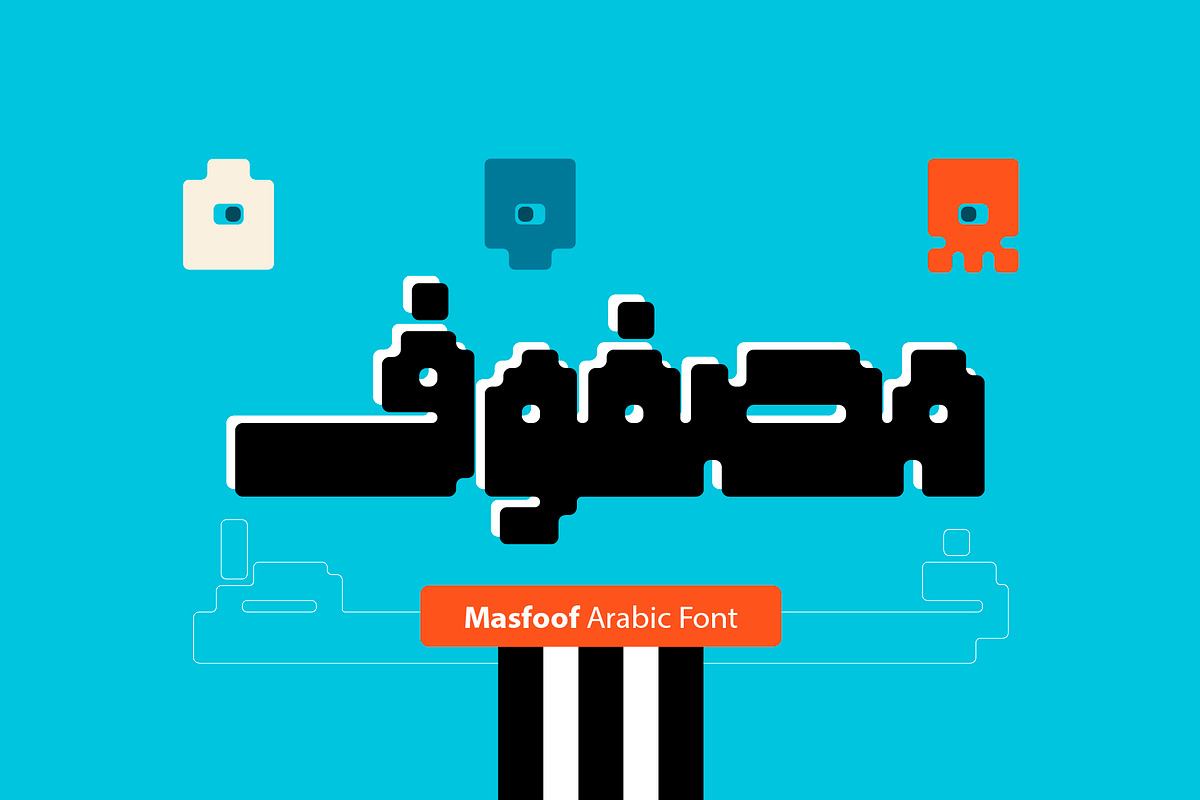
Masfoof Font Free Download is a sleek and modern Arabic typeface designed for clarity, elegance, and versatility. With its clean lines and contemporary structure, Masfoof is ideal for branding, editorial content, web design, packaging, and any project that requires a refined Arabic font. It strikes a balance between tradition and innovation, making it suitable for both professional and creative use.
Crafted with precision and readability in mind, Masfoof Font Free Download offers a seamless reading experience across digital and print formats. Its minimalist aesthetic allows it to integrate smoothly with Latin typefaces, making it a great choice for bilingual design needs.
Masfoof stands out with its modern appeal while respecting the elegance of classic Arabic script. Whether you're working on a cultural event identity, corporate material, or stylish editorial content, this font delivers sophistication and clarity every time.